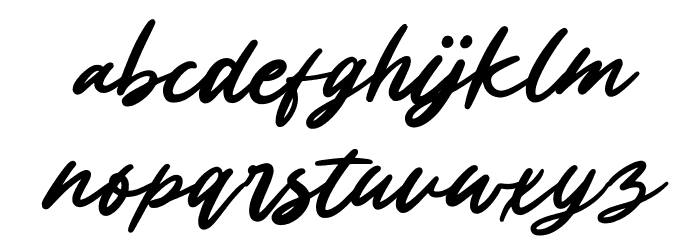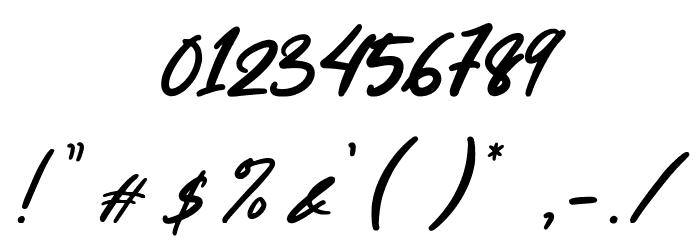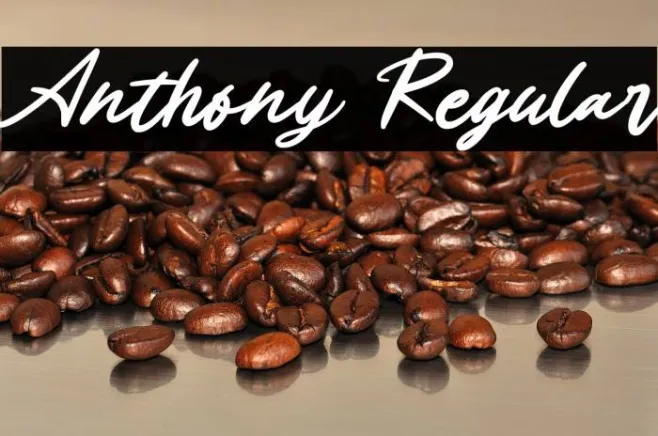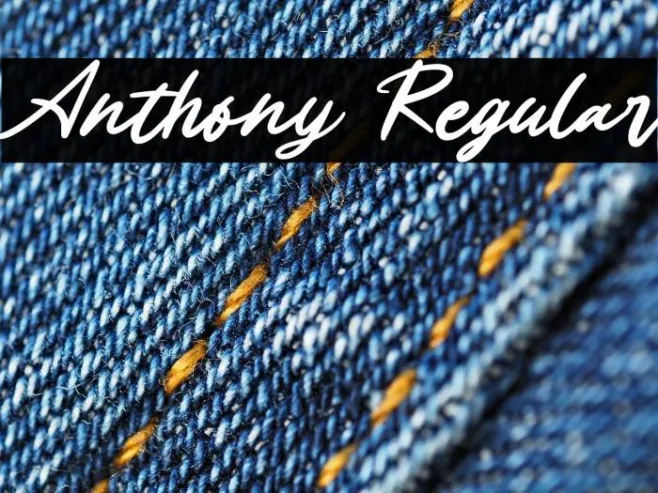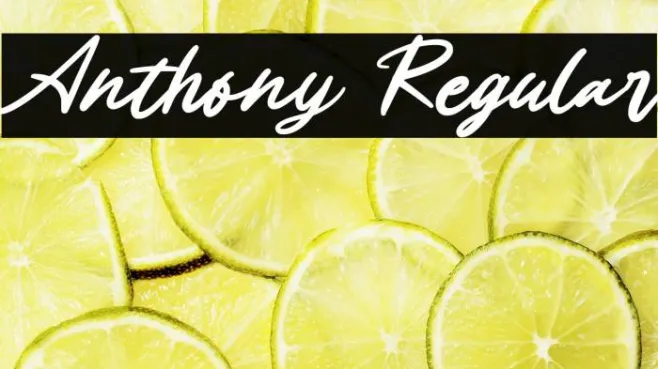
Anthony Regular Font
This font features a dynamic and fluid script style, characterized by its bold and expressive strokes. The letters are interconnected, giving a sense of continuity and flow, reminiscent of elegant handwriting. The uppercase letters maintain a consistent height, while the lowercase letters exhibit slight variations, adding to the font's charm. The numerals are clear and legible, matching the overall style. Special characters are included, maintaining the same expressive quality. This font is perfect for projects that require a personal touch, such as invitations, greeting cards, or branding materials.
A bold and expressive script font with fluid, interconnected strokes.
- Proposed Projects: Ideal for invitations, greeting cards, branding, and personal projects.
- Use Case: Logos, Headlines, Invitations